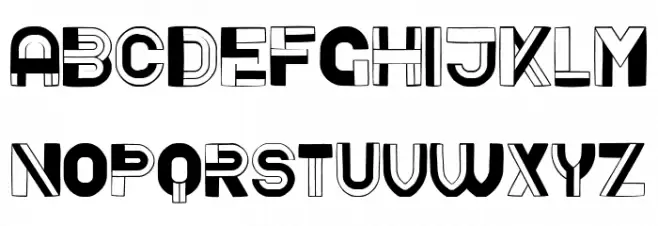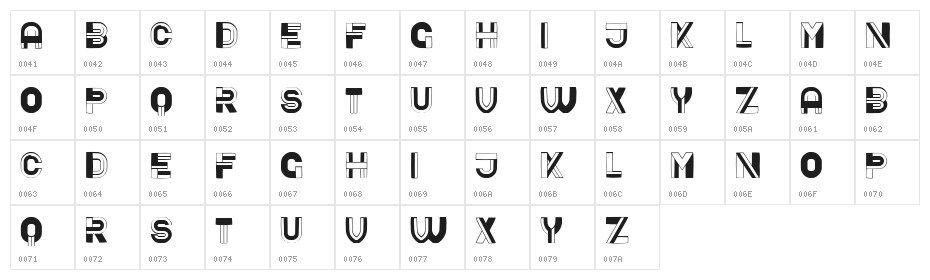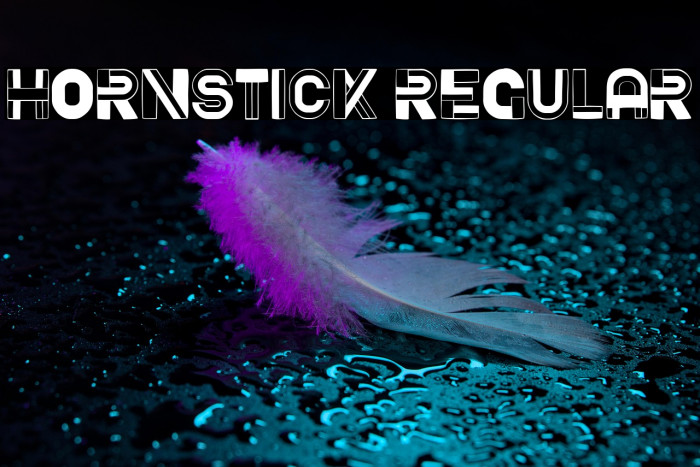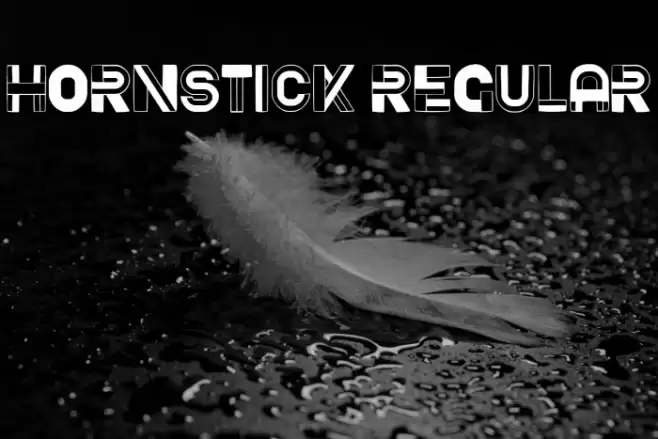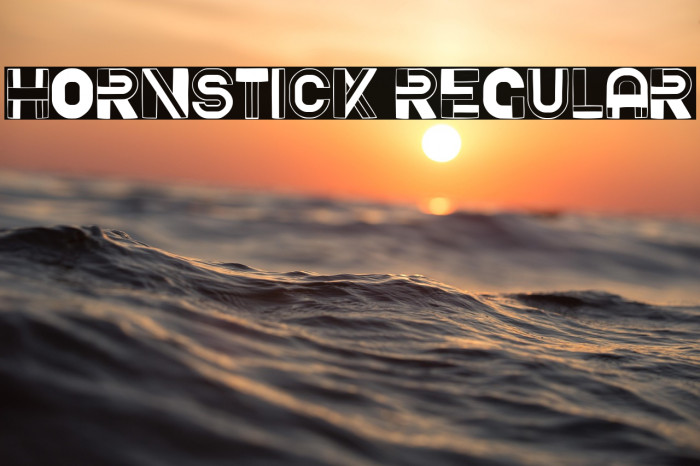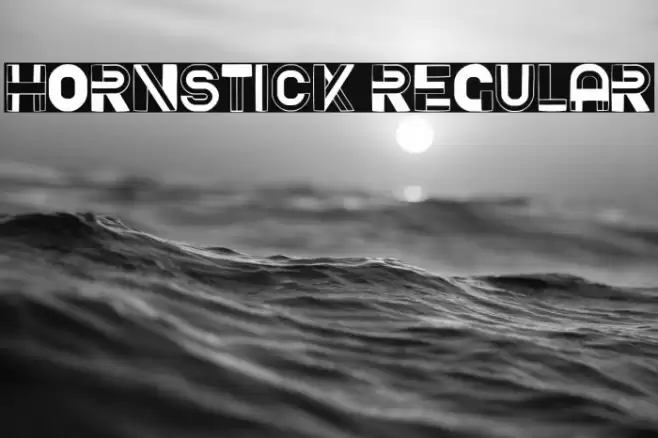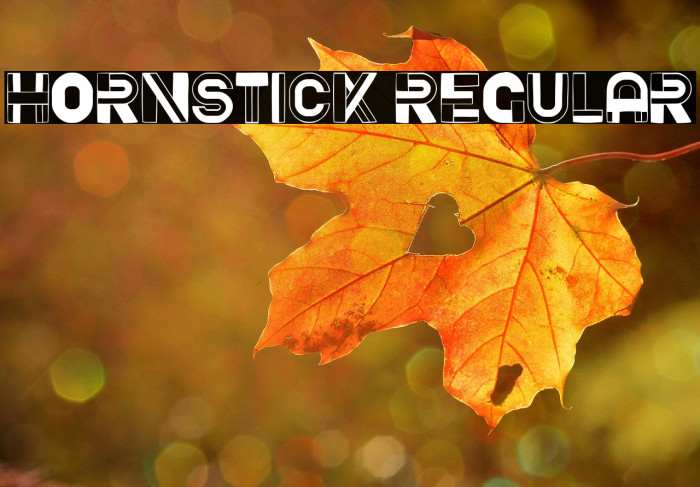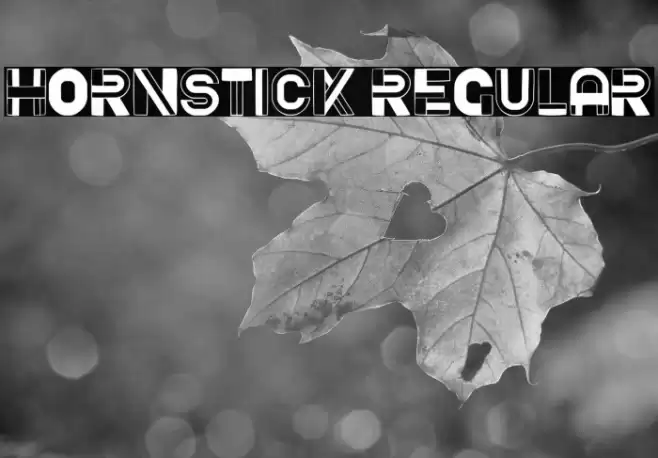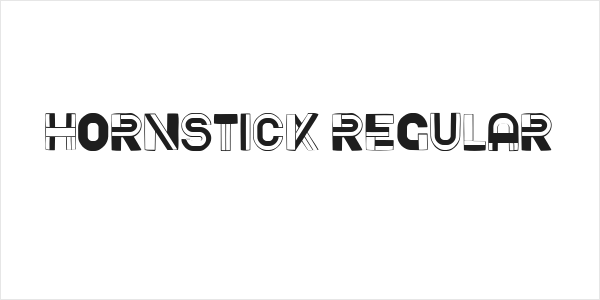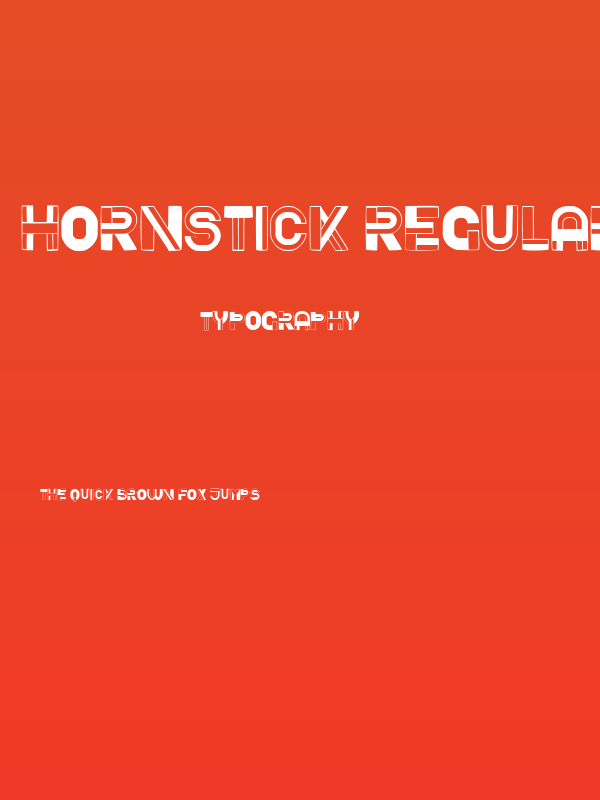
Hornstick Regular Font
Hornstick Regular Description
This font features a bold and dynamic design with a strong geometric influence. Each character is crafted with a combination of thick and thin lines, creating a striking contrast that draws attention. The letters are uppercase and exhibit a unique blend of solid and outlined elements, giving them a three-dimensional appearance. The style is modern and playful, making it suitable for creative and eye-catching designs. The font's structure is consistent, with a uniform height and width across all characters, ensuring a balanced and harmonious look.
| Proposed Projects | Ideal for posters, logos, branding, and any project requiring a bold, modern aesthetic. |